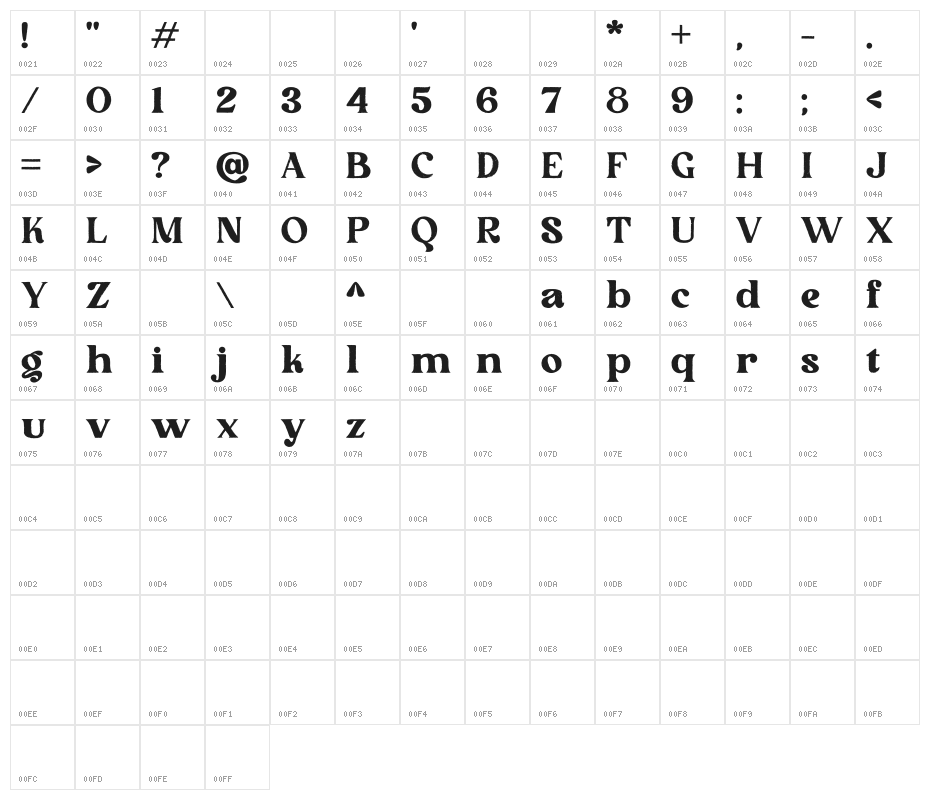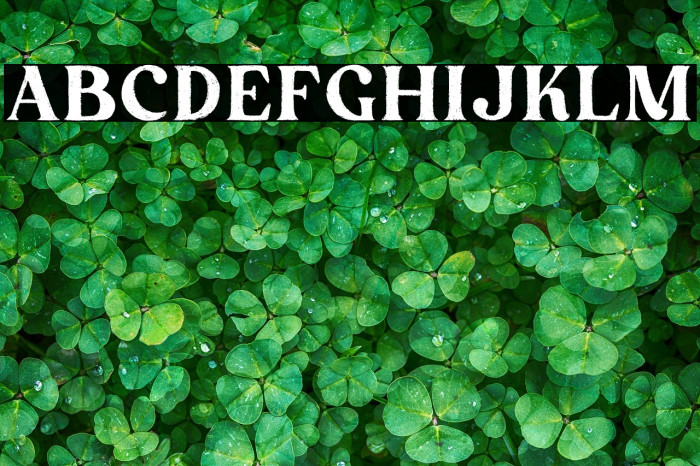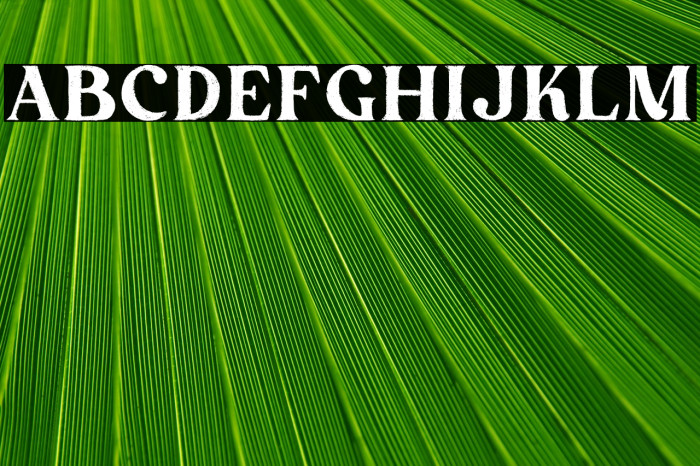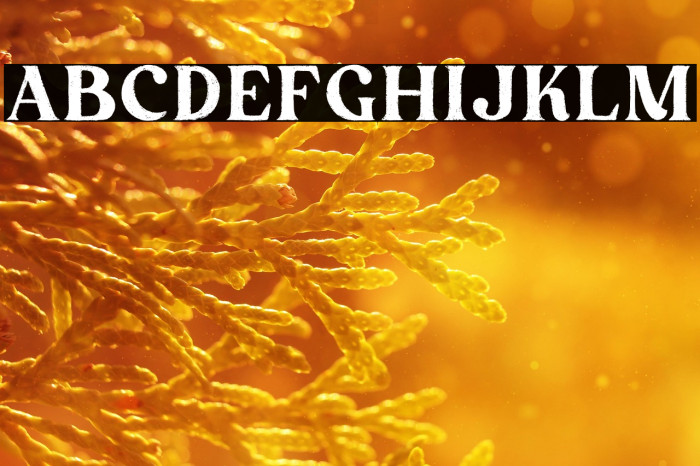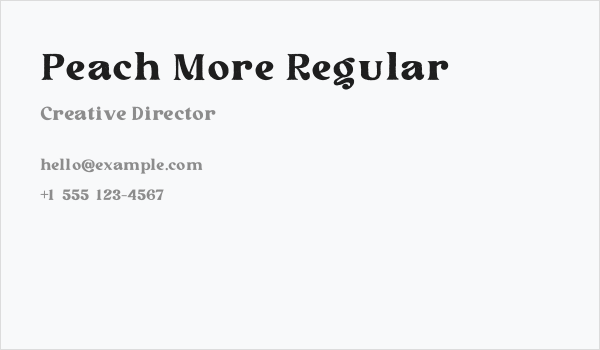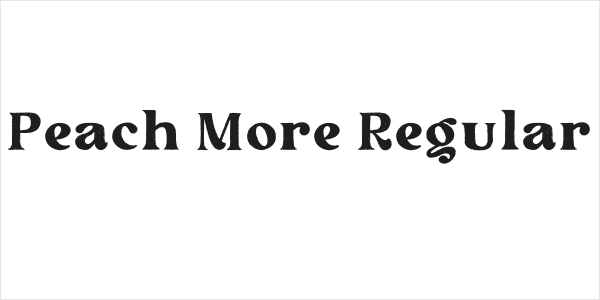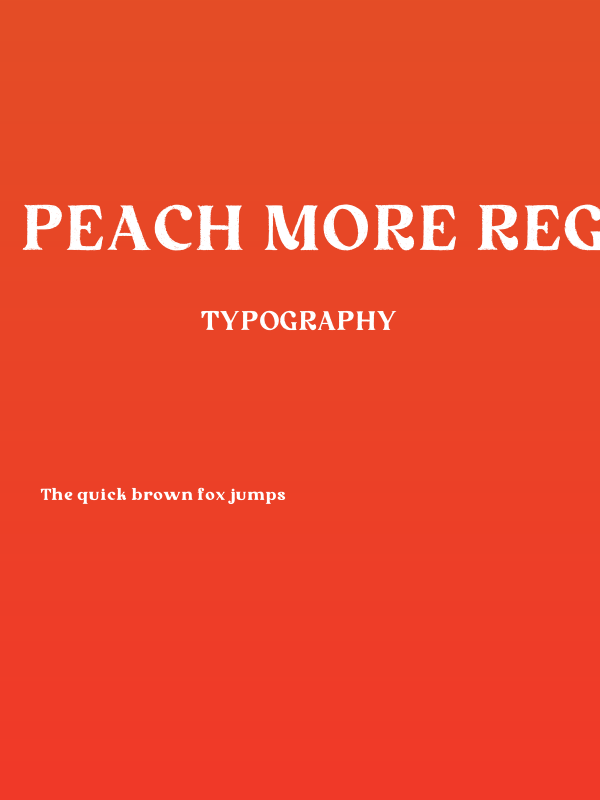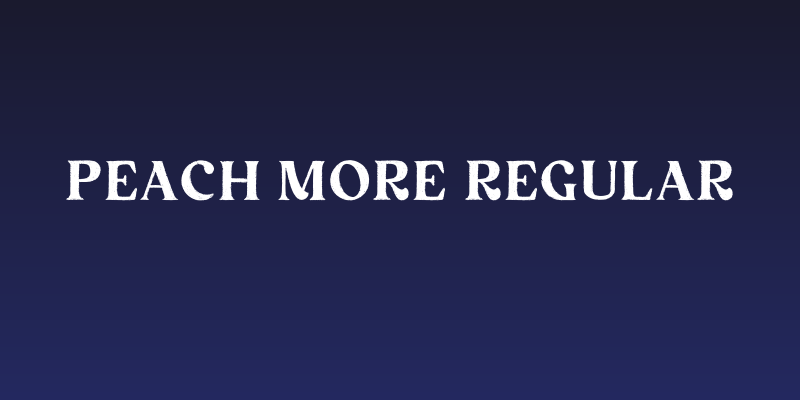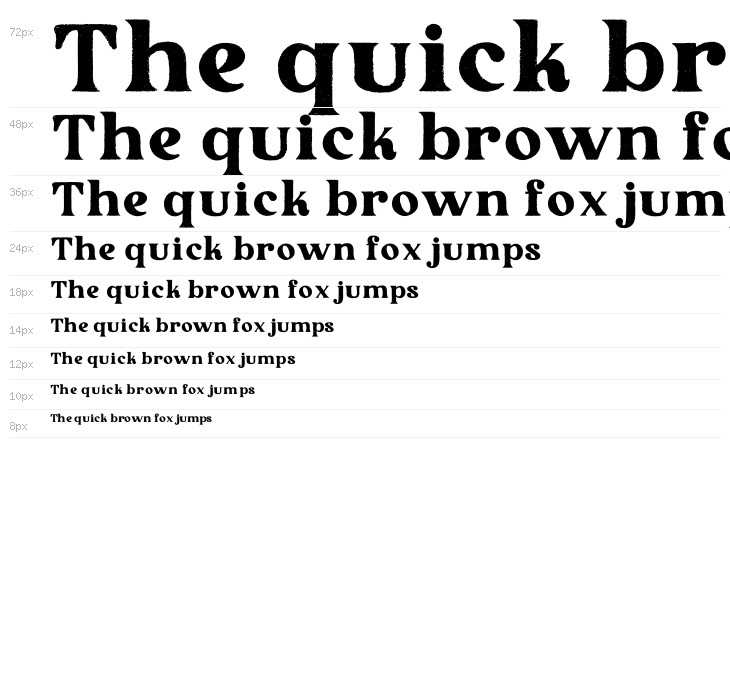
Peach More Regular Font
Peach More Regular Description
This font features a bold and expressive style with a strong presence. The uppercase letters are robust and slightly condensed, giving a sense of authority and impact. The lowercase letters maintain a playful yet sophisticated look, with unique curves and flourishes that add character. The numerals are consistent with the overall boldness, ensuring readability and style. Special characters are designed with the same attention to detail, making them stand out while remaining cohesive with the rest of the font. The strokes are thick, providing a high contrast that enhances visibility and adds a dramatic flair.
| Proposed Projects | Ideal for branding, headlines, posters, and any project requiring a strong visual impact. |